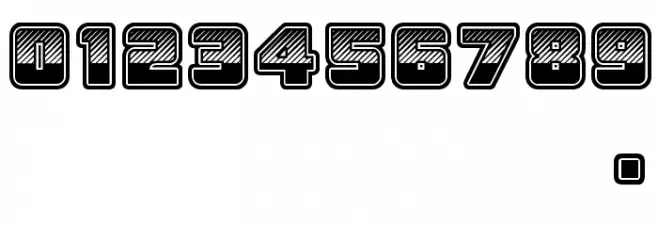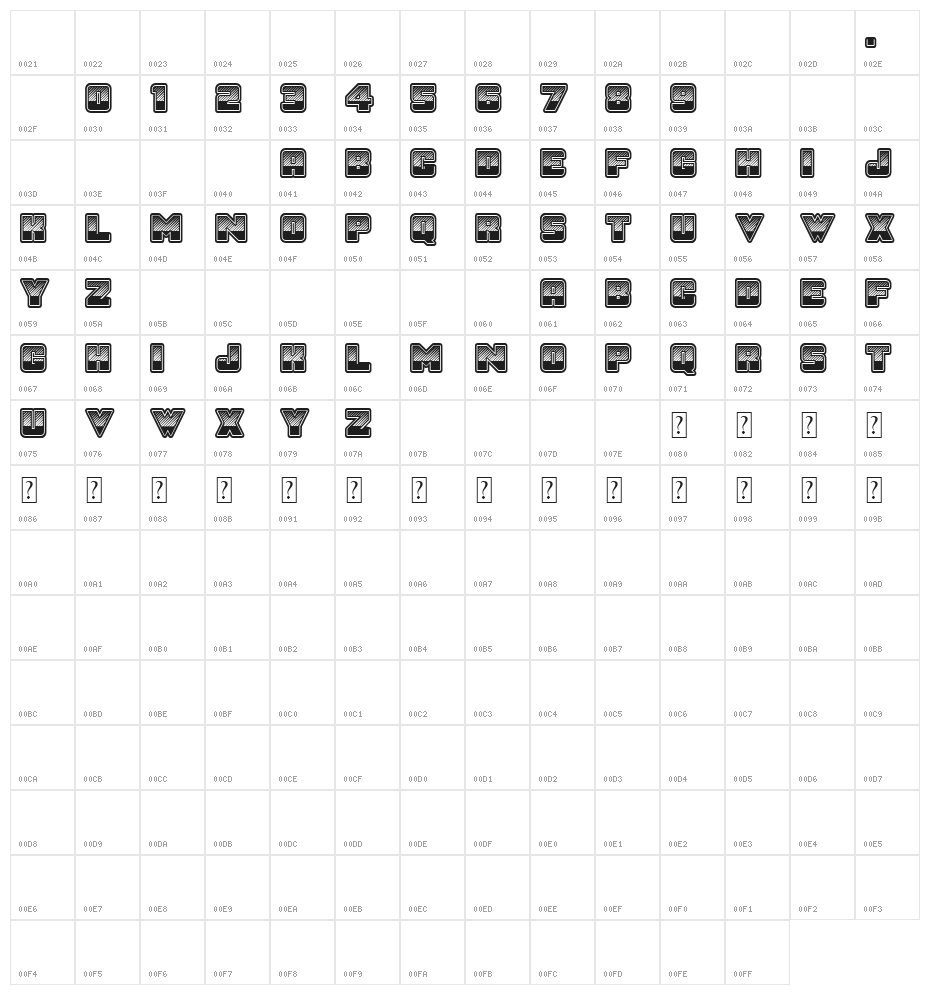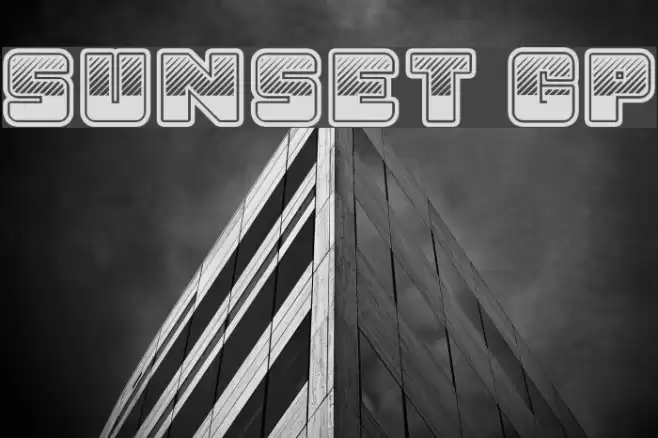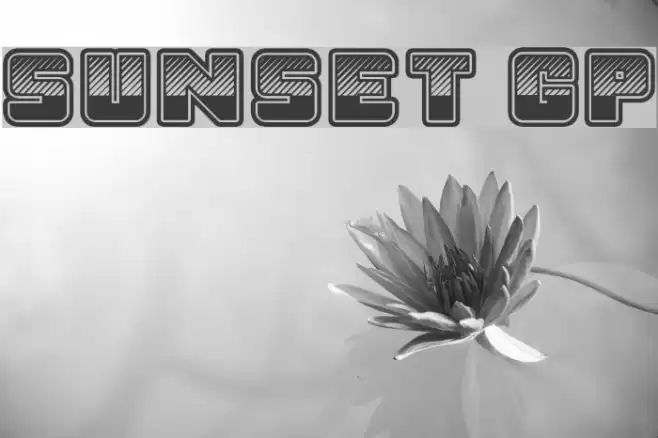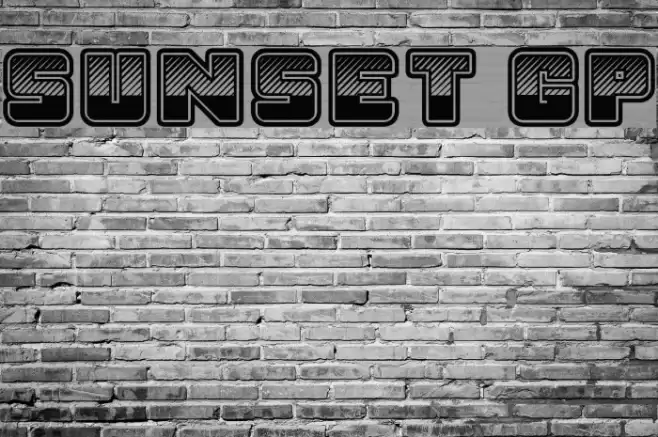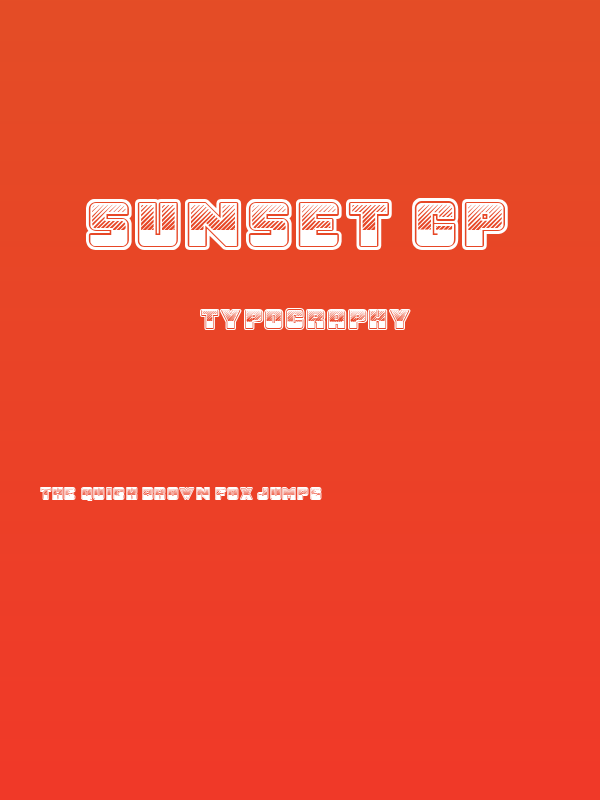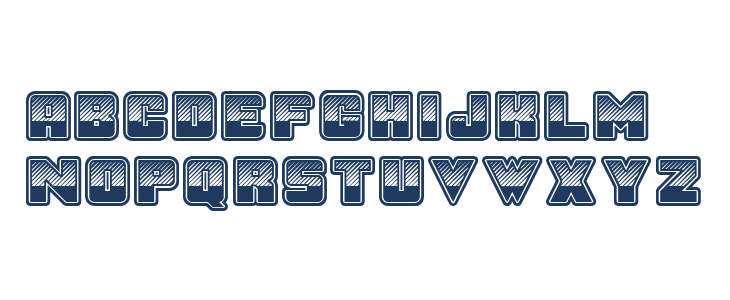
Sunset GP Font
Sunset GP Description
This font features a bold, geometric style with a distinct three-dimensional effect. Each character is outlined with a thick border, creating a striking contrast between the inner and outer sections. The interior of the letters is filled with diagonal lines, adding texture and depth. The overall design is modern and eye-catching, making it suitable for attention-grabbing headlines or titles. The characters are evenly spaced, ensuring readability while maintaining a compact appearance. This font's unique style is ideal for projects that require a bold and dynamic visual impact.
| Proposed Projects | Ideal for posters, logos, video game graphics, and branding materials. |